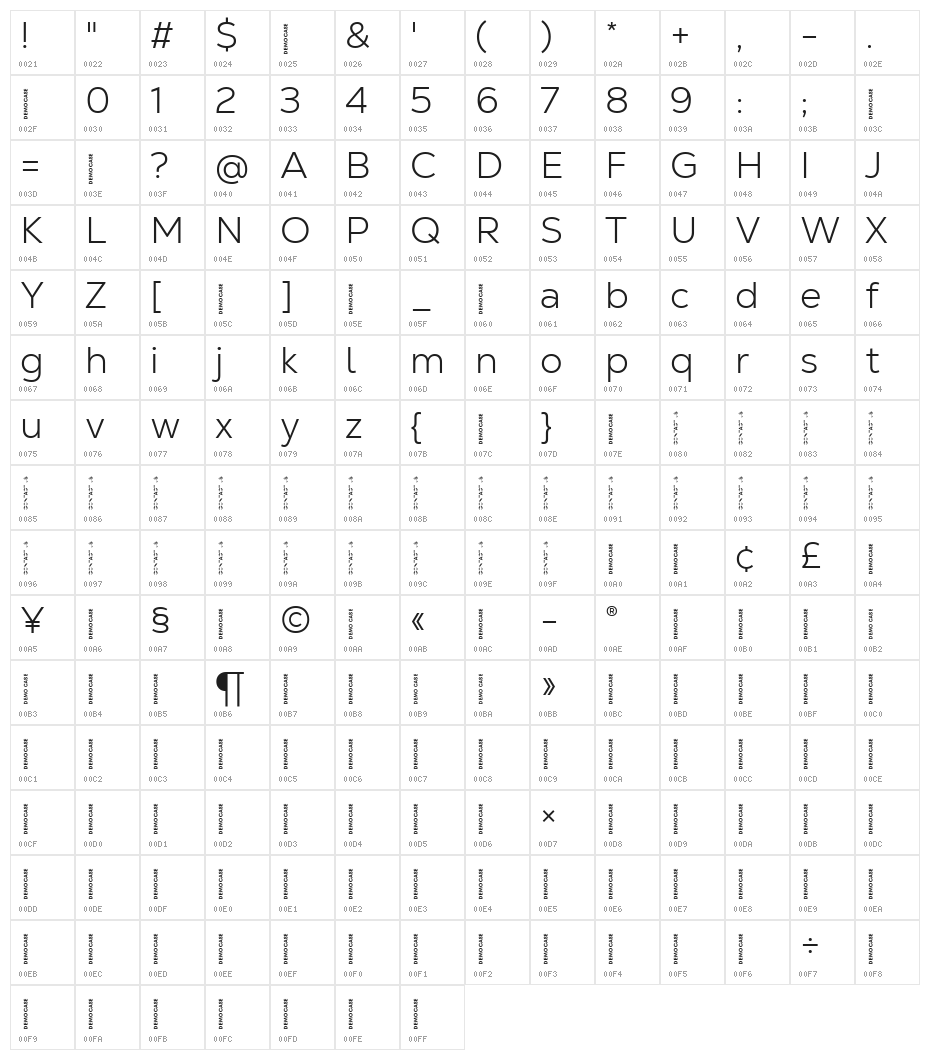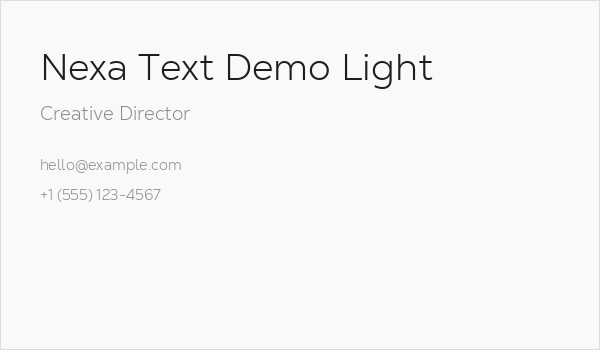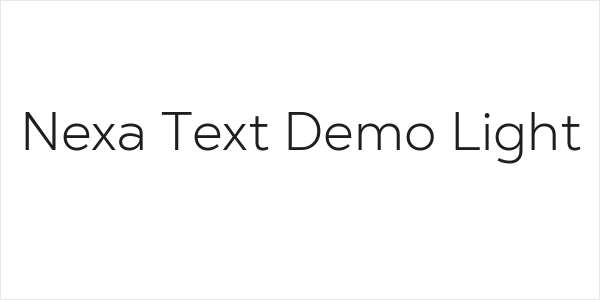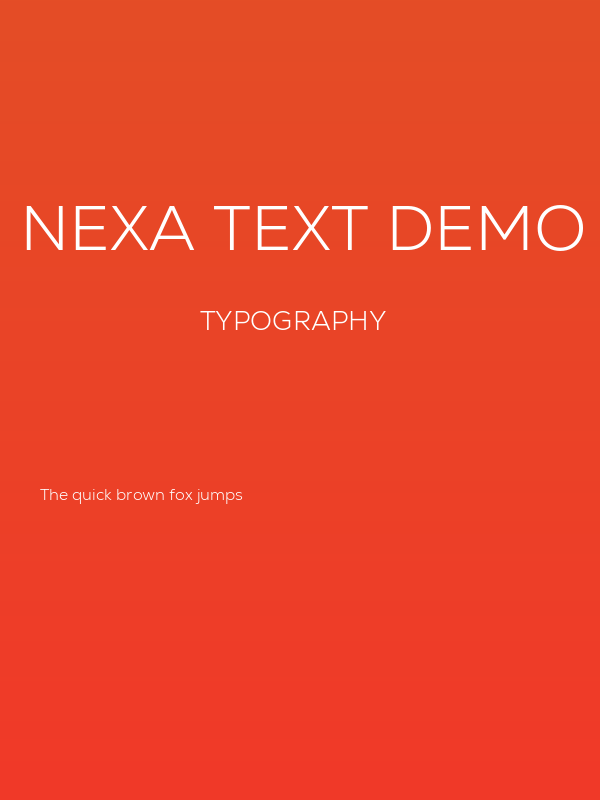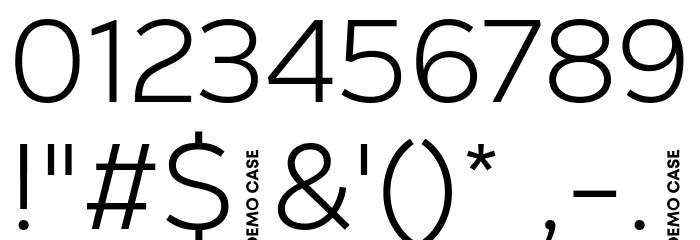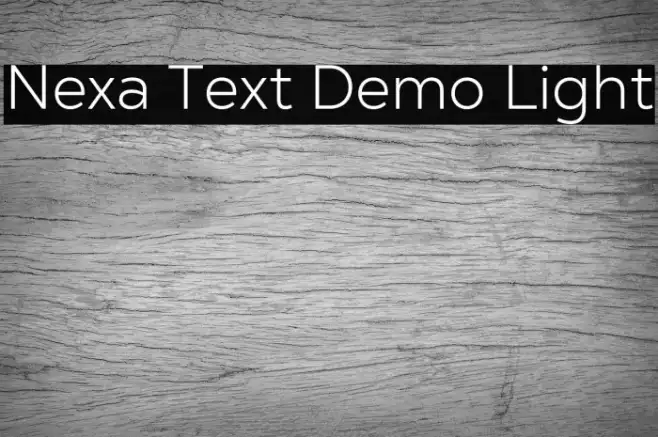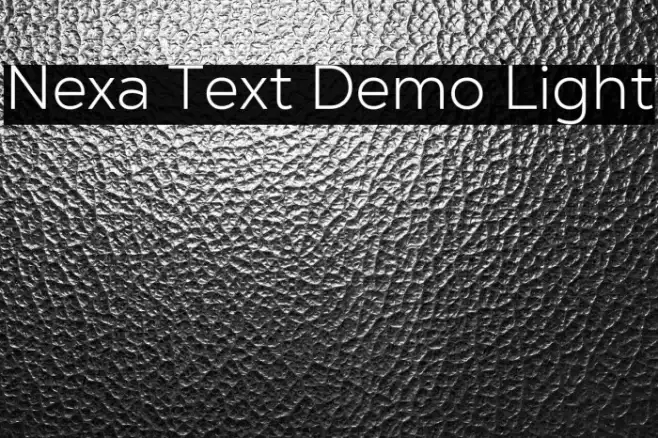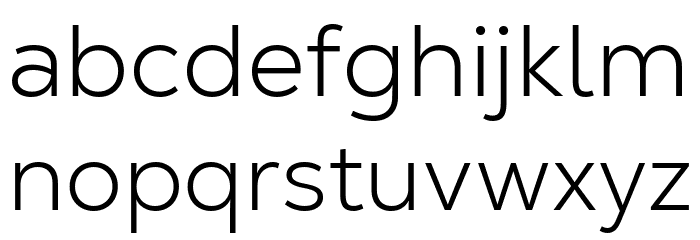
Nexa Text Demo Light Font
Nexa Text Demo Light Description
This font exhibits a clean and modern sans-serif style, characterized by its geometric shapes and uniform stroke width. The letters are well-balanced with a consistent height and width, providing a harmonious and professional appearance. The lowercase letters have a friendly and approachable feel, while the uppercase letters maintain a strong and authoritative presence. The numerals are clear and easily distinguishable, making them suitable for various applications. The special characters are designed with the same attention to detail, ensuring they integrate seamlessly with the rest of the typeface.
| Proposed Projects | Ideal for corporate branding, digital interfaces, advertising, and editorial design. |